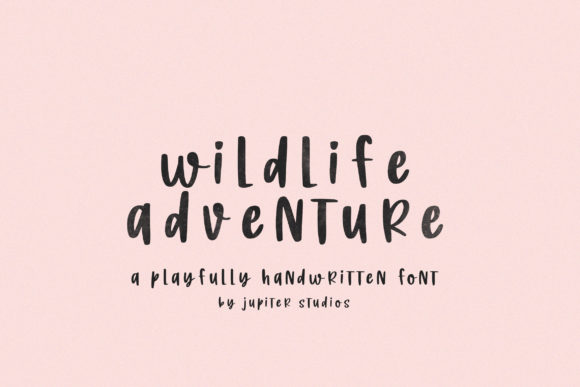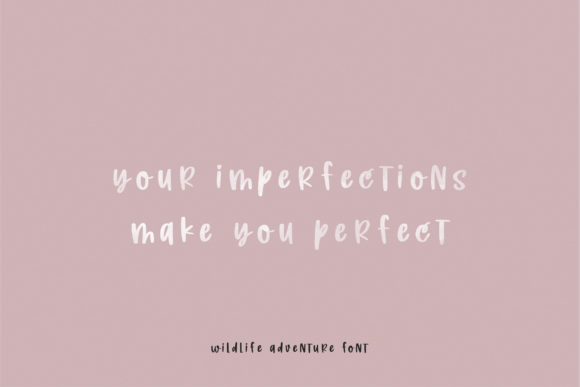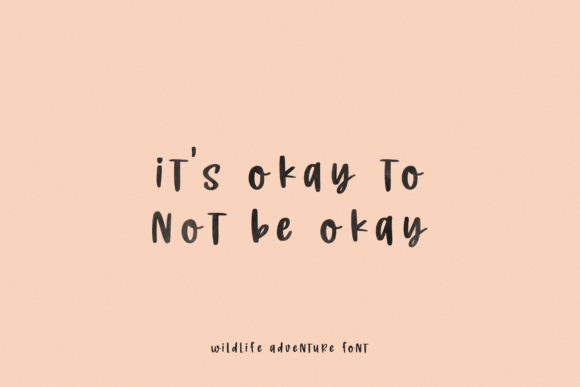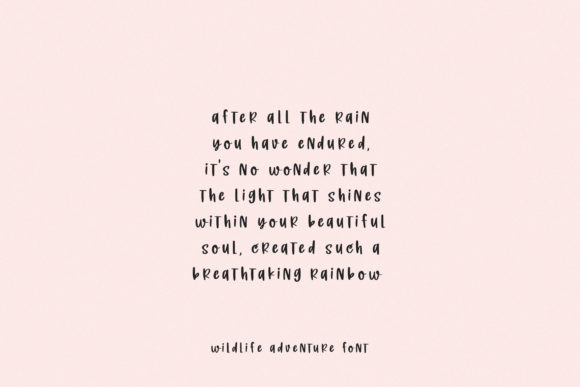
About Wildlife Adventure Font
Wildlife Adventure is a cool and casual handwritten font. Whether you’re using it for crafting, digital designing, presentations or greeting cards making, it’s perfect!